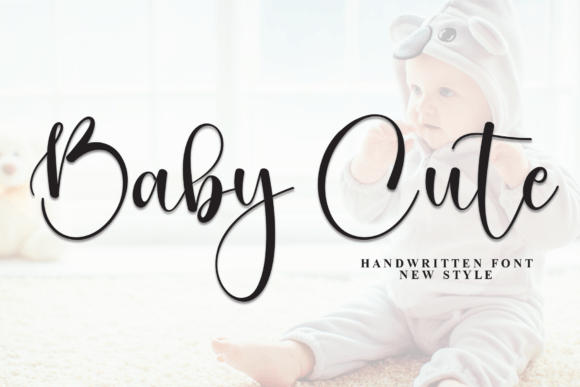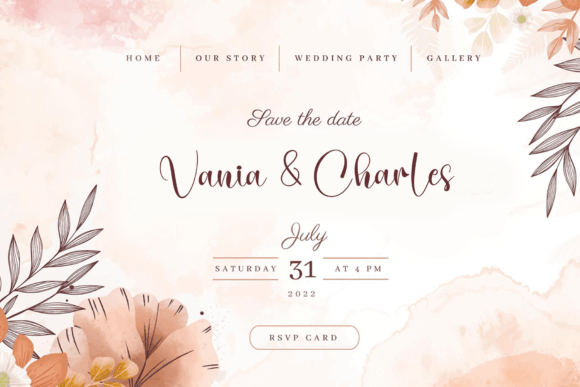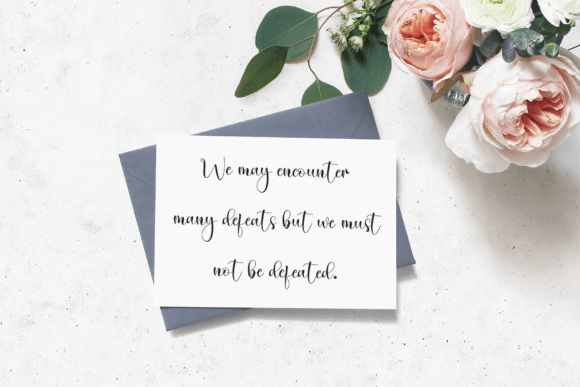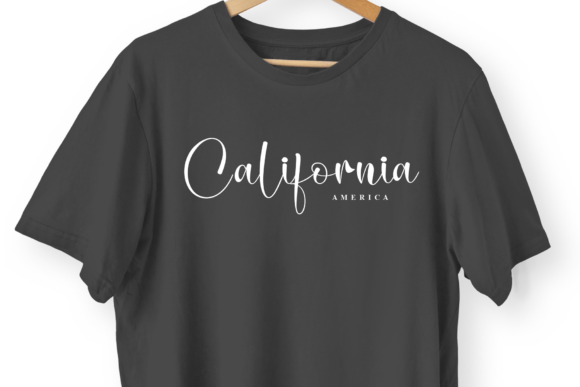
About the Baby Cute Font
Explore the possibilities with Baby Cute Font, a font that offers both beauty and functionality. Baby Cute is a stylish and incredibly elegant script font. It looks stunning on wedding invitations, thank you cards, quotes, greeting cards, logos, business cards and every other design which needs a handwritten touch.
Baby Cute Font Usage Examples
Baby Cute Font Example